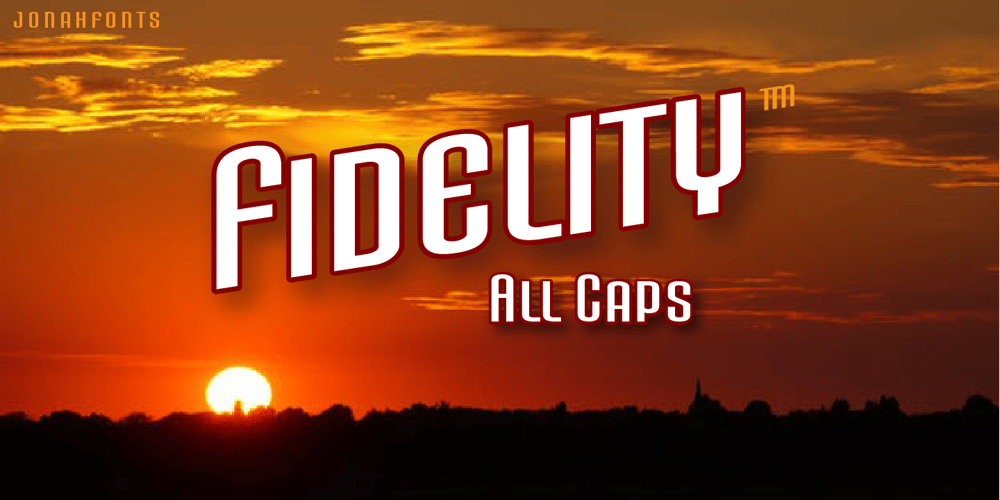
Fidelity Caps
Fidelity Caps font
Fidelity Caps Font Family was designed by John Nahmias and published by Jonahfonts. Fidelity Caps contains 1 styles and family package options. A tall upright CAP font with small caps. Now includes the Capital German double S (Eszett) ß. Applications include Captions, headlines, packaging, posters, ads, greeting cards, book jackets and/or covers.